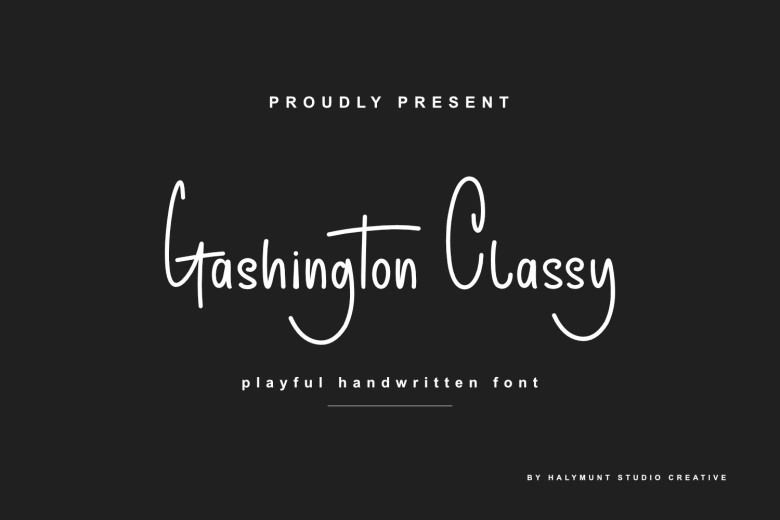
Gashington Classy Font
Gashington Classy is a cool and casual playful handwritten font. It will add an incredibly joyful touch to your designs. Suitable for all design needs such as logo design, branding work, modern advertising design, modern logos and poster quotations !
Can even handle book or cover Title hand lettering. Perfect for editorial design too. Your blog website needs its specific touch -you know what that is… And when you’re looking for unique designs of cards, T-shirt printing is always just around the corner with us.
Gashington Classy Handwritten Font